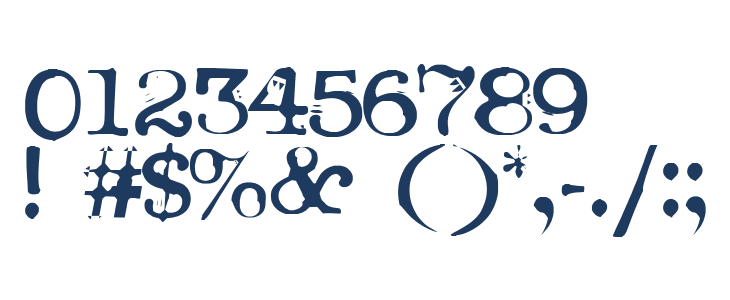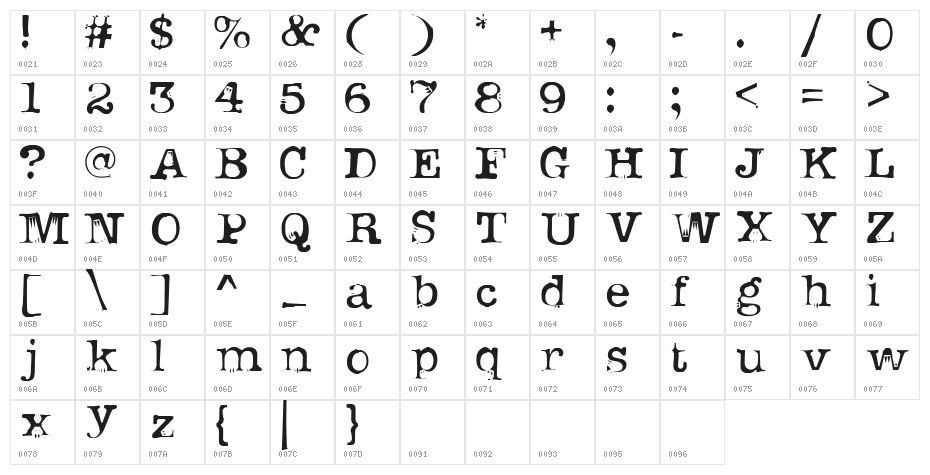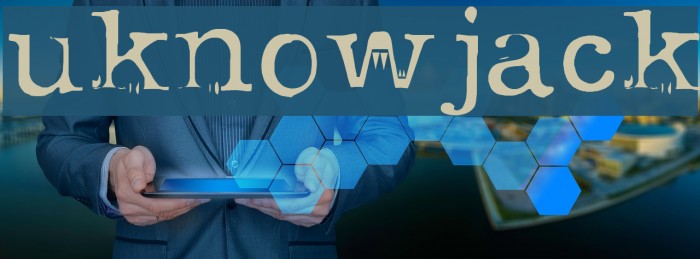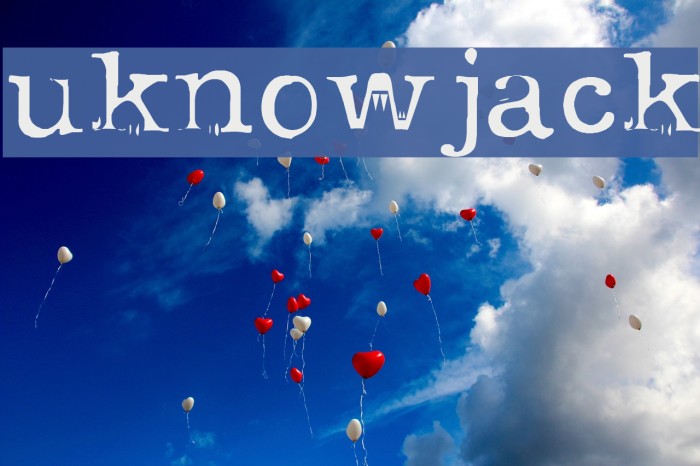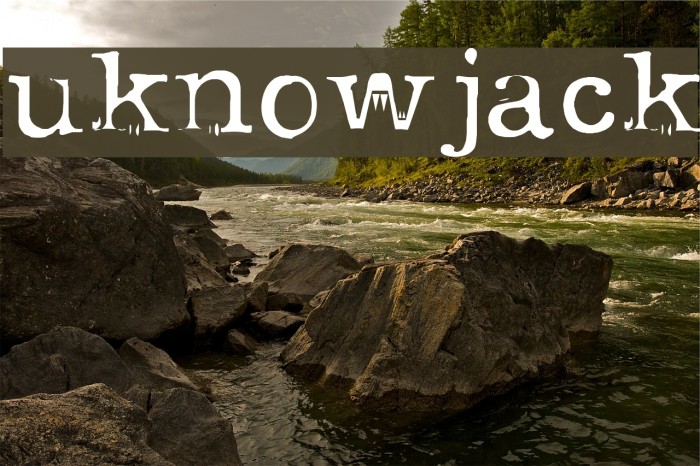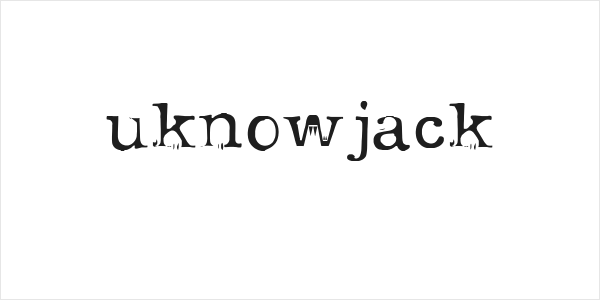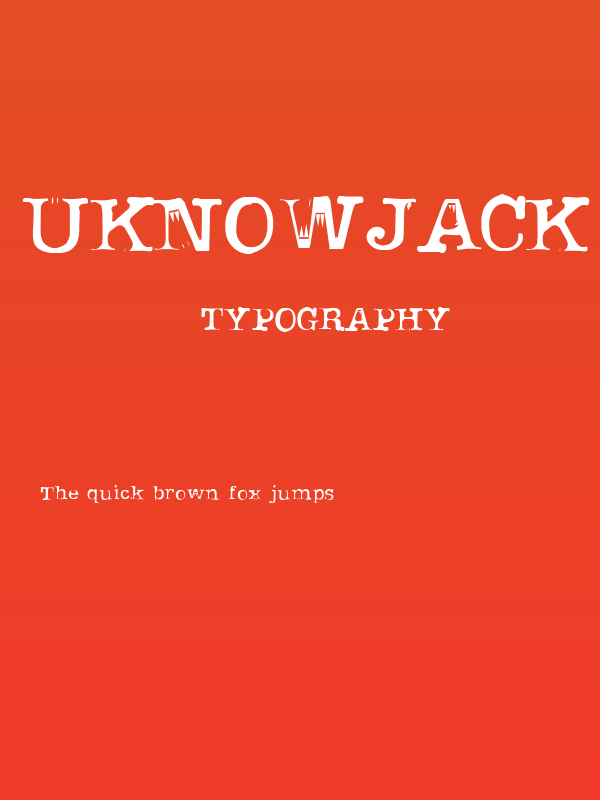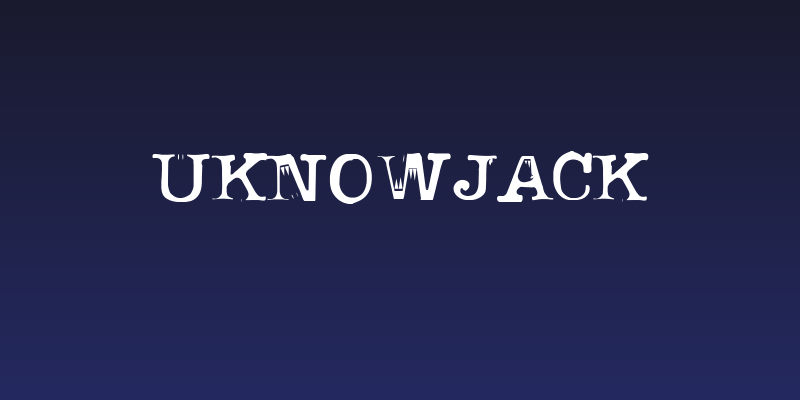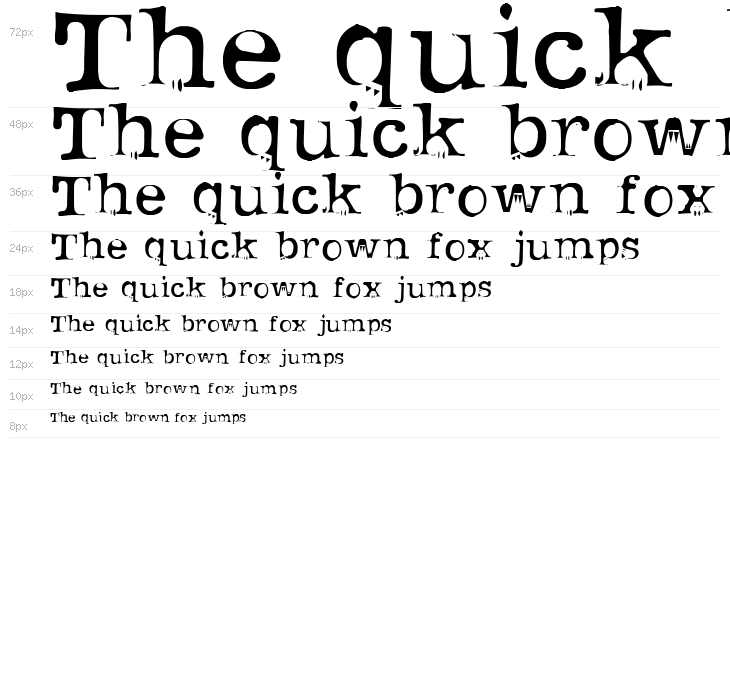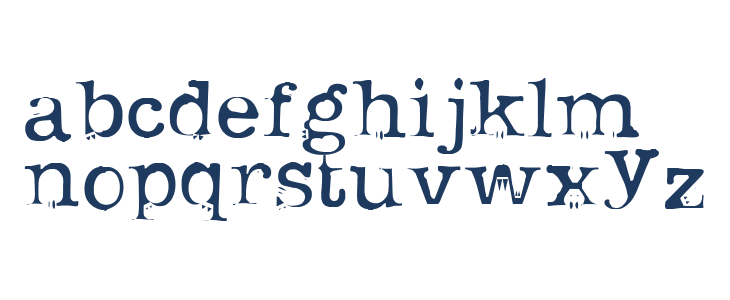
uknowjack Font
uknowjack Description
This font features a distressed, grunge style with a bold and impactful appearance. The characters have a rough texture, giving them a worn and vintage look. The uppercase and lowercase letters maintain a consistent design, with unique imperfections that add character. The numerals and special characters follow the same aesthetic, making the font suitable for creative and edgy designs. The overall style is decorative, with a strong presence that draws attention.
| Overall Style | Vintage, Decorative |
| Proposed Projects | Ideal for album covers, posters, branding for edgy products, or any project needing a bold, vintage look. |